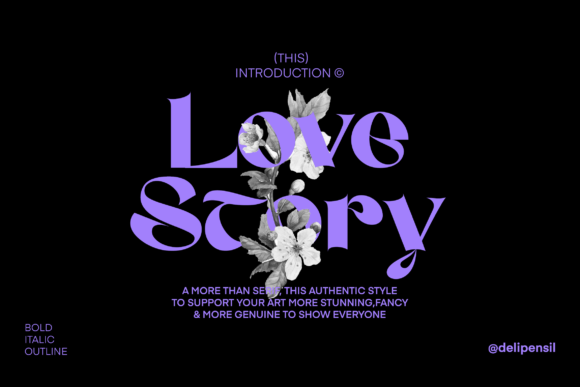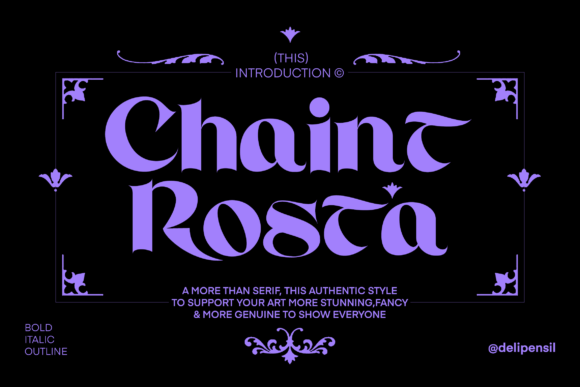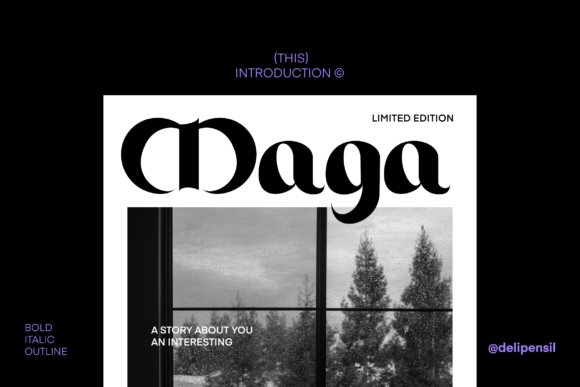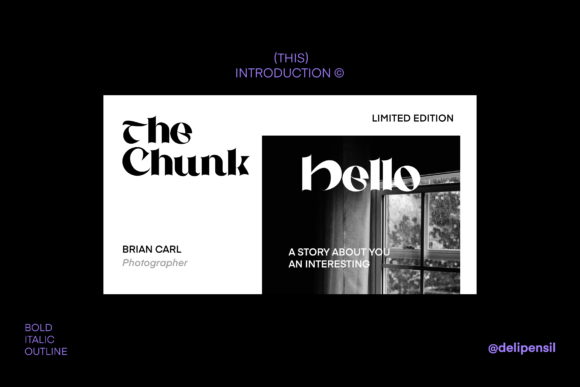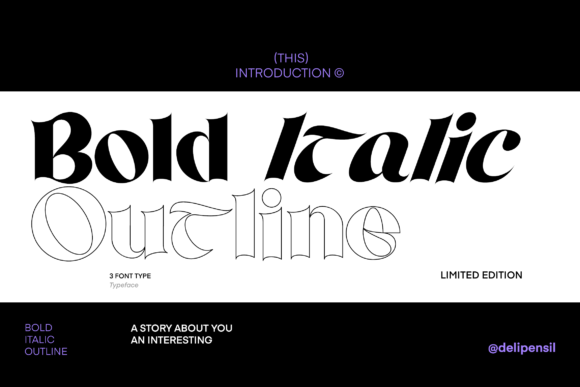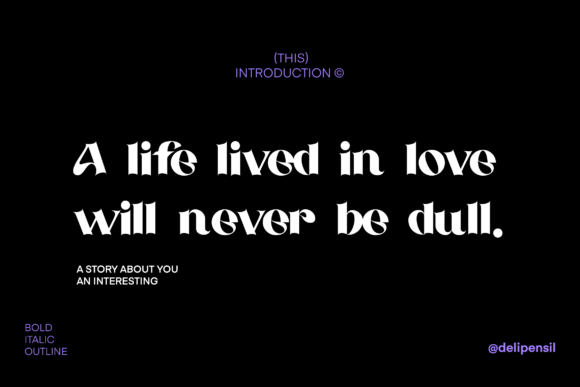
Elevate Your Design with Auora Font: A Timeless Serif Font for Modern Creatives
In the world of design, typography plays a crucial role in capturing the essence of a brand or product. With the numerous font options available, finding the perfect one that resonates with your audience can be overwhelming. However, if you’re looking for a font that exudes a vintage retro feel with modern accents, look no further than Auora Font. This stunning serif font is designed to elevate your design and grow your audience.
The Charm of Auora Font
Auora Font boasts a unique blend of classic and modern elements, making it an ideal choice for designers and crafters. Its vintage retro feel evokes a sense of nostalgia, while its modern accents keep it fresh and contemporary. This timeless font is perfect for a wide range of design applications, including branding, magazine titles, product packaging, logos, and more.
Key Features of Auora Font
- Vintage Retro Feel: Auora Font’s classic design elements transport your audience back in time, evoking a sense of nostalgia and sophistication.
- Modern Accents: The font’s modern twists keep it fresh and contemporary, ensuring your design stands out in a crowded market.
- Serif Elegance: Auora Font’s serif details add a touch of elegance and refinement, making it perfect for high-end branding and luxury products.
- Versatility: This font is designed to work seamlessly across various design applications, from digital platforms to print materials.
Why Choose Auora Font?
With so many fonts available, why should you choose Auora Font for your design project? Here are a few compelling reasons:
- Unique Identity: Auora Font helps you establish a distinctive brand identity that sets you apart from the competition.
- Emotional Connection: The font’s vintage retro feel creates an emotional connection with your audience, fostering a deeper appreciation for your brand or product.
- Flexibility: Auora Font is suitable for a wide range of design applications, making it a valuable addition to your font library.
- Easy to Read: The font’s clear and legible design ensures your message is conveyed effectively, even at smaller font sizes.
Design Applications for Auora Font
Auora Font’s versatility makes it an excellent choice for various design applications, including:
- Branding: Establish a strong brand identity with Auora Font’s unique and memorable design.
- Magazine Titles: Create eye-catching magazine titles that grab attention and draw readers in.
- Product Packaging: Elevate your product packaging with Auora Font’s sophisticated and elegant design.
- Logos: Create a lasting impression with a custom logo designed using Auora Font.
| Font Name | Auora Font |
| Author | delipensil |
In conclusion, Auora Font is an exceptional serif font that offers a perfect blend of vintage retro charm and modern accents. Its versatility, elegance, and emotional resonance make it an ideal choice for designers and crafters looking to elevate their design and grow their audience. Whether you’re working on a branding project, magazine title, product packaging, or logo design, Auora Font is sure to make your design more stunning and memorable.